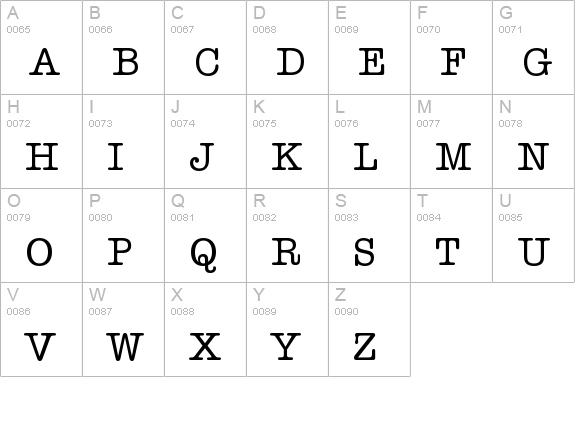
American Typewriter Medium BT is a balanced, medium-weight variant in the American typeface family \xE2\x80\x94 well suited to sub-headlines, navigation, and balanced editorial work.
American Typewriter Medium BT font is a classic and timeless typeface that exudes a sense of nostalgia and professionalism. With its sturdy, typewriter-inspired design, this font is perfect for conveying a sense of reliability and tradition in your projects. The medium weight strikes a balance between boldness and readability, making it versatile for a wide range of applications. What sets American Typewriter Medium BT font apart is that it is available for free download at FontsMarket.com. This means you can easily incorporate this iconic font into your designs without any added cost. Whether you're looking to add a touch of vintage charm or create a clean and structured look, American Typewriter Medium BT font is a fantastic choice that won't break the bank. Download it today and elevate your design projects with this timeless typeface.